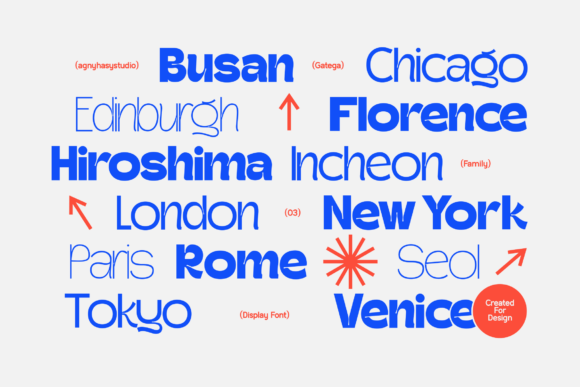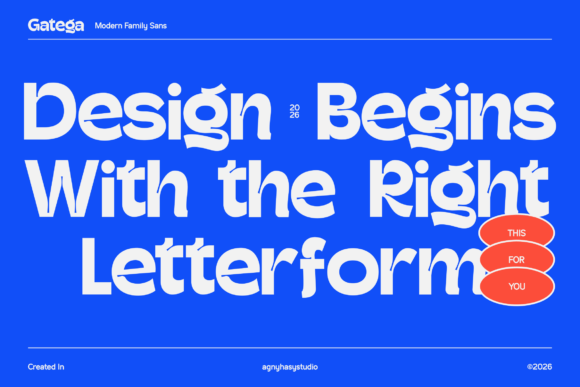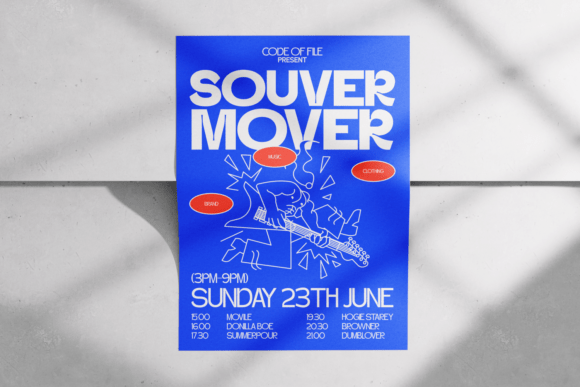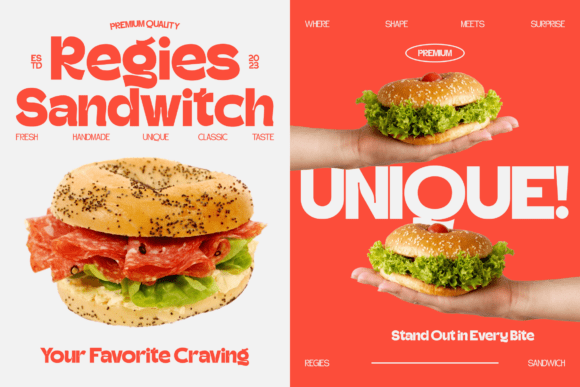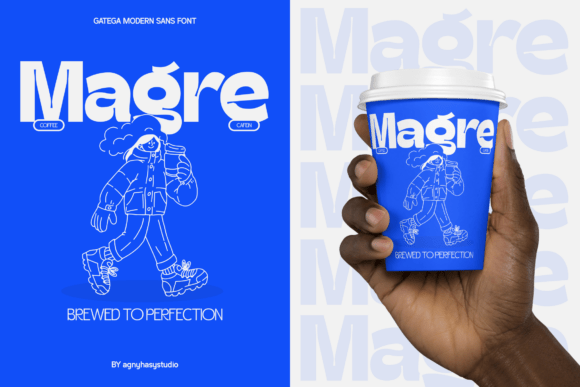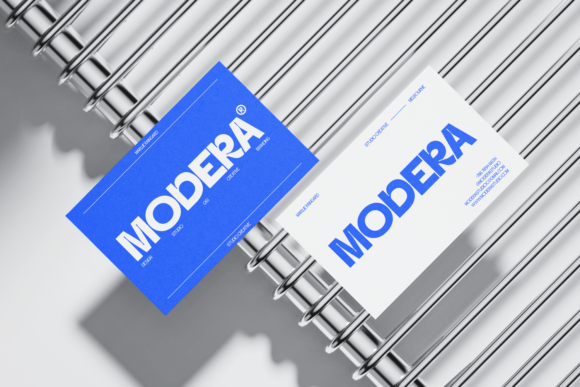
Introduction to Gatega Font
Have you ever stared at a blank design canvas, eager to bring a creative project to life? As designers, we’ve all been there – searching for the perfect font to set the tone and elevate our work. It’s in these moments that the right design resource can make all the difference. That’s where Gatega Font comes in – a modern, bold, and playful sans family that’s sure to make your designs stand out.
With its chunky proportions and decorative cutouts, Gatega Font is perfect for streetwear and digital app interfaces that require a tech-forward yet playful aesthetic. Whether you’re working on a free download or a high-quality commercial project, this font is sure to provide the visual punch you need. And the best part? Its transparent background and high-quality design make it a valuable addition to any designer’s toolkit.
Key Features of Gatega Font
- High-quality font design with a transparent background, ideal for creative projects and design resources.
- Unique characteristic: The Gatega Font features a distinctive, hand-drawn style that adds a touch of elegance to any creative project.
- Perfect for designers, artists, and writers looking for a versatile and stylish font for their design resources.
Honest Review: Gatega Font
I recently had the chance to work with the Gatega Font, and I must say it’s a decent addition to any design resource. With a wide range of characters, it’s perfect for a creative project that needs a unique touch.
- What works well: ✨ The Gatega Font is incredibly versatile and can be used in various design scenarios, from logos to typography-heavy projects. Its clean and modern design makes it an excellent choice for those seeking a high-quality font.
- ⚠️ The font’s transparency feature can be a bit tricky to work with, especially when trying to create a seamless design with a transparent background.
- ⚠️ Some users may find the font’s character set to be a bit limited, although this is not a major issue for most design projects.
Overall, I’d say the Gatega Font is a solid choice for designers looking for a unique and free font option. While it may have some limitations, its strengths make it a valuable addition to any design resource.
Tips for Getting the Most Out of Gatega Font
To get the most out of the Gatega Font, experiment with different font sizes, colors, and styles to create a unique look for your design. You can also use the font’s transparent background feature to create a seamless integration with your design elements.
The Gatega Font is a versatile design resource that can be used in a variety of creative projects, including logos, branding materials, and marketing collateral. Its high-quality design and transparent background make it an ideal choice for designers looking to add a professional touch to their work.